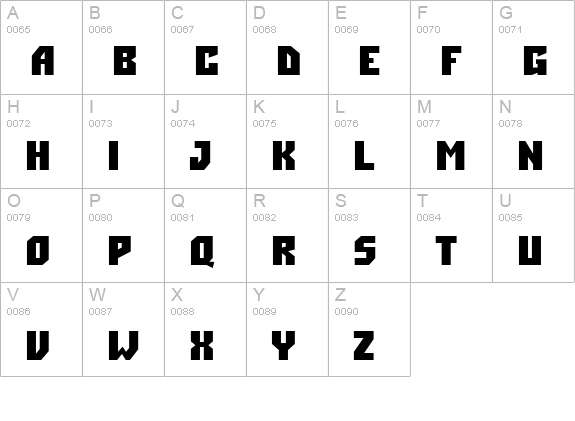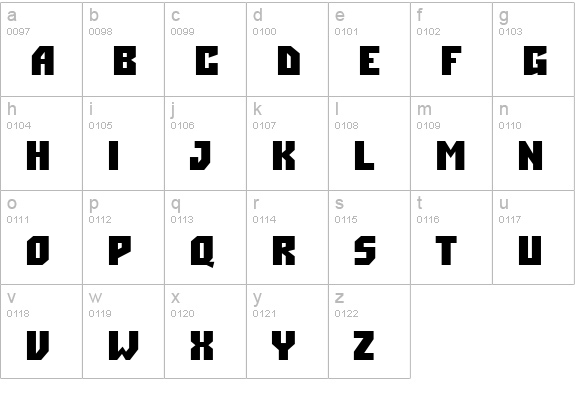
a_Simpler Bold is a strong, high-contrast variant in the a_Simpler typeface family \xE2\x80\x94 well suited to headlines, attention-grabbing titles, and strong calls-to-action.
Introducing Simpler Bold - a sleek and modern font that exudes simplicity and elegance. With its clean lines and bold strokes, Simpler Bold is perfect for making a statement in your design projects. This versatile typeface is suitable for a wide range of applications, from branding and advertising to packaging and web design. What's even better is that Simpler Bold is completely free to download at FontsMarket.com. Yes, you read that right - you can access this premium font at no cost, making it a valuable addition to your font collection. Don't miss out on the opportunity to elevate your designs with the stylish and contemporary Simpler Bold font. Download it today and see the difference it can make in your creative projects!